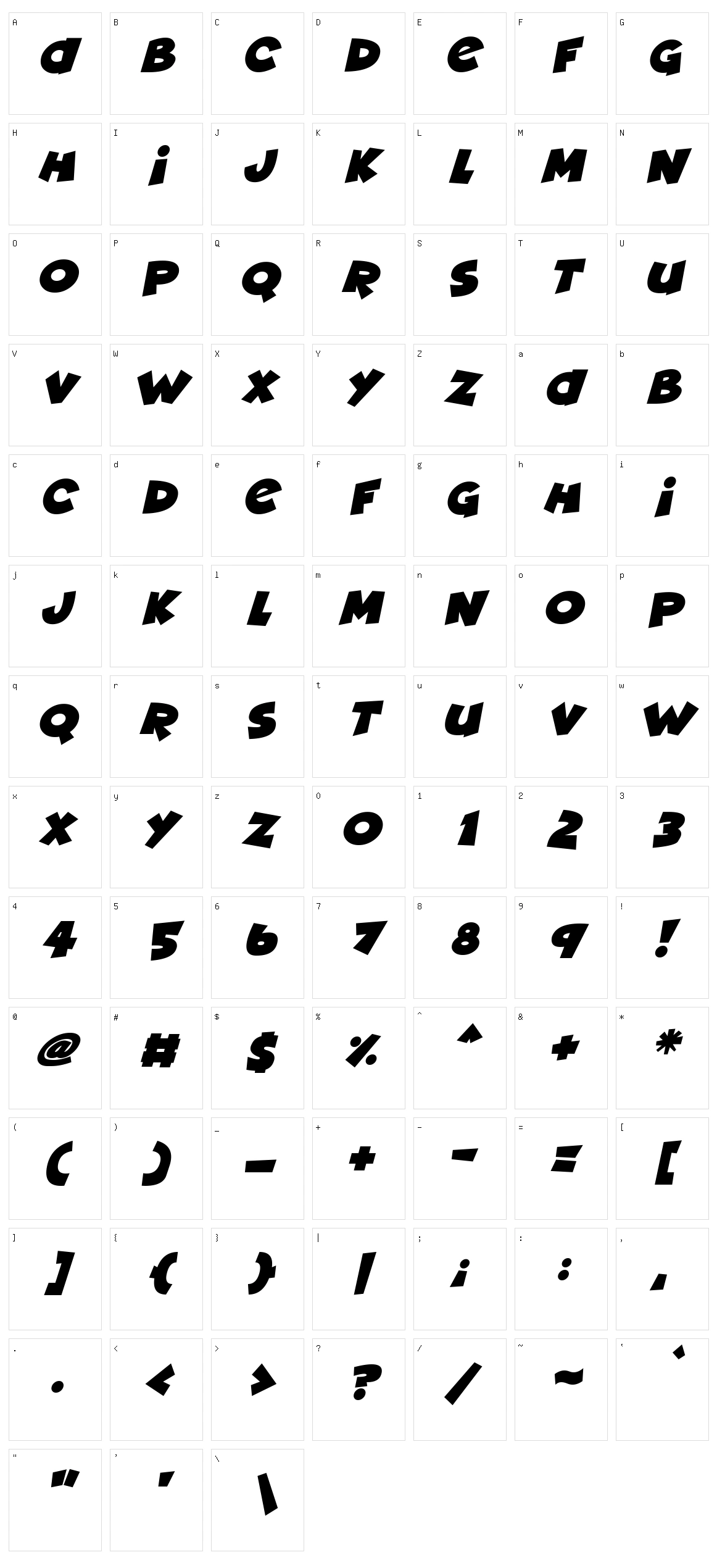
Deadly Cute V1.3
* DEADLY CUTE text character added for Dafont preview image
* Optical kerning change
* Kerning changes / compatability fixes
* Euro character support (all common accents and composites)